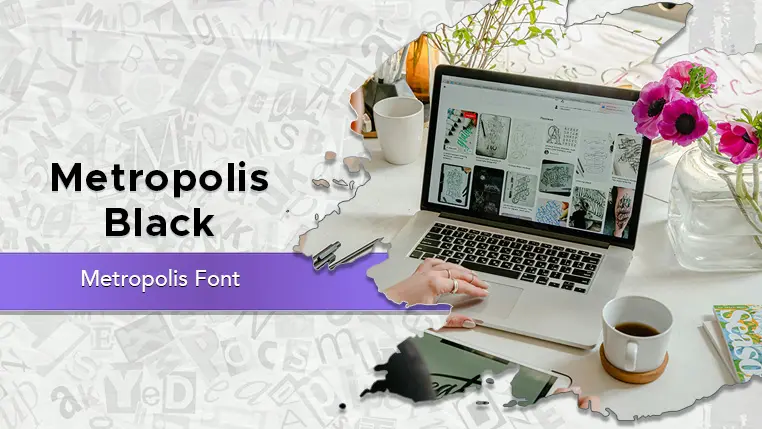
The Metropolis font family may be ideal for you if you enjoy working on an artistic design project. The lively, expressive look of this typeface, which was created by Chris Simpson, makes it ideal for UI/UX Design and Web. With multiple weights from thin to black, Metropolis can be used for impactful headlines, titles, and posters. Its clean design works well in large sizes. While it excels as a display font, its legibility also makes it suitable for short to medium-length blocks of body text in articles, reports, and digital publications. and other light-hearted visual projects.
Black, Black Italic, Bold, Bold Italic, Extra Bold, Extra Bold Italic, Extra Light, Extra Light Italic, Light, Light Italic, Medium, Medium Italic, Regular, Regular Italic, Semi Bold, Semi Bold Italic, Thin, Thin Italic are the eighteen primary font styles of the Metropolis font family. You may build dynamic, visually appealing text layouts with the distinct flair that each style offers. With crisp, readable lines and a relaxed tone.